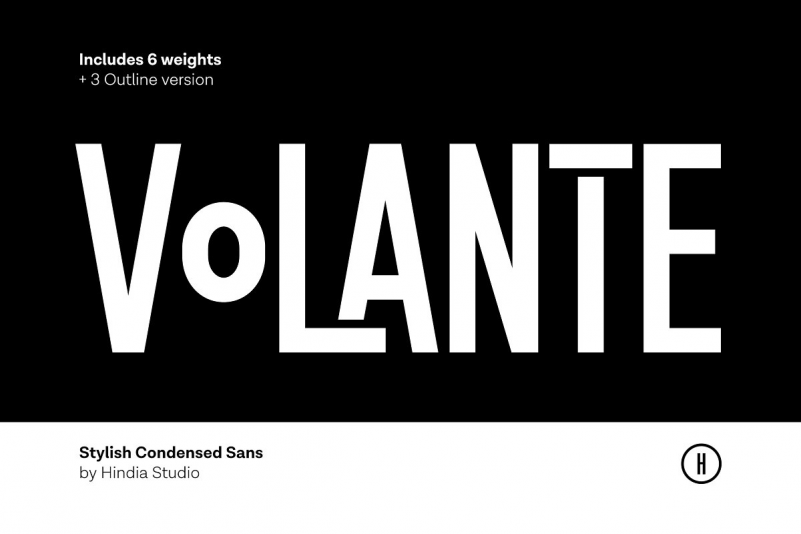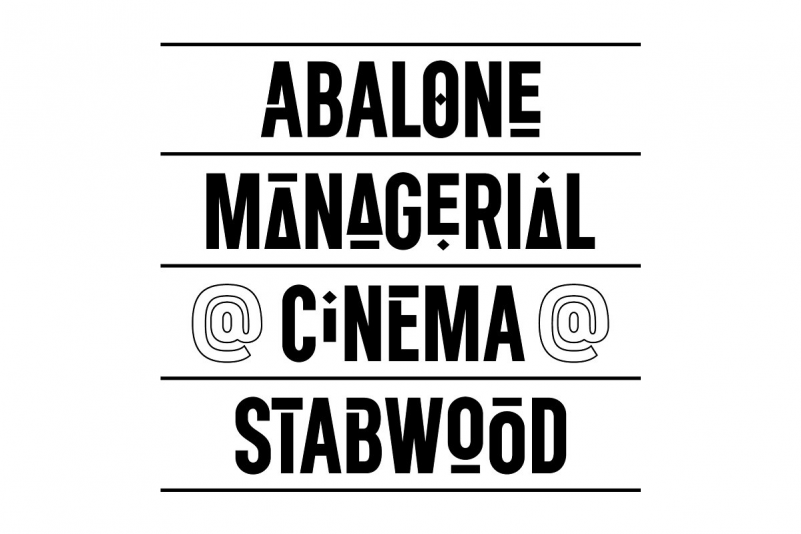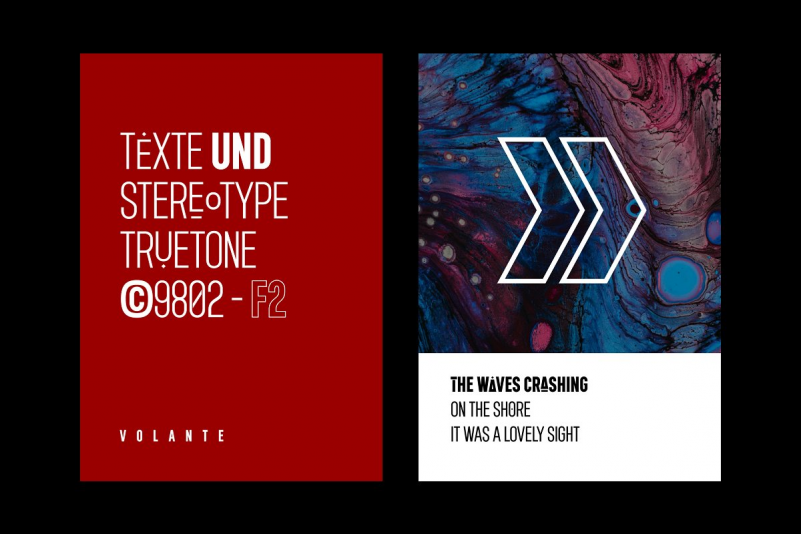
Volante Font
Volante is a gorgeous condensed sans serif typeface that comes with various stylistic alternates and discretionary ligatures. It comes with multiple weights, from thin to heavy, with 3 extra outline styles. This is perfect to sweeten up your headlines, branding visual identity, editorial, poster, and etc.